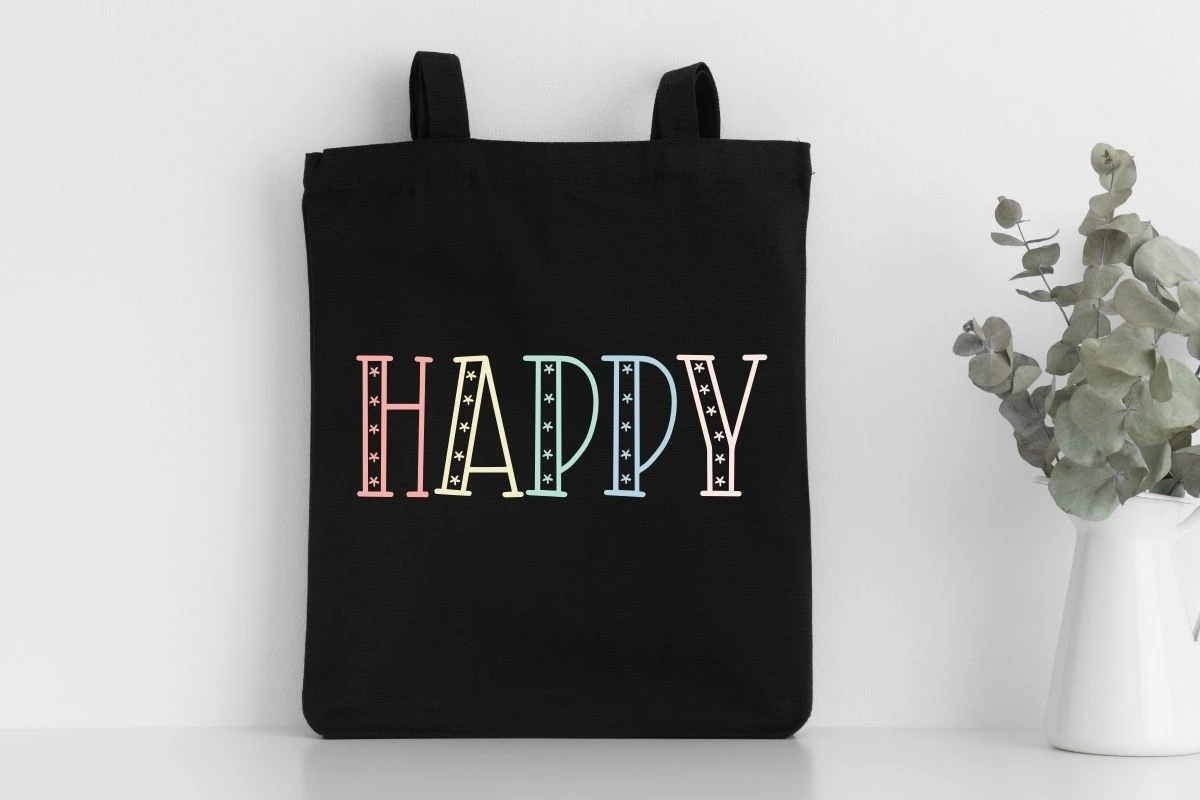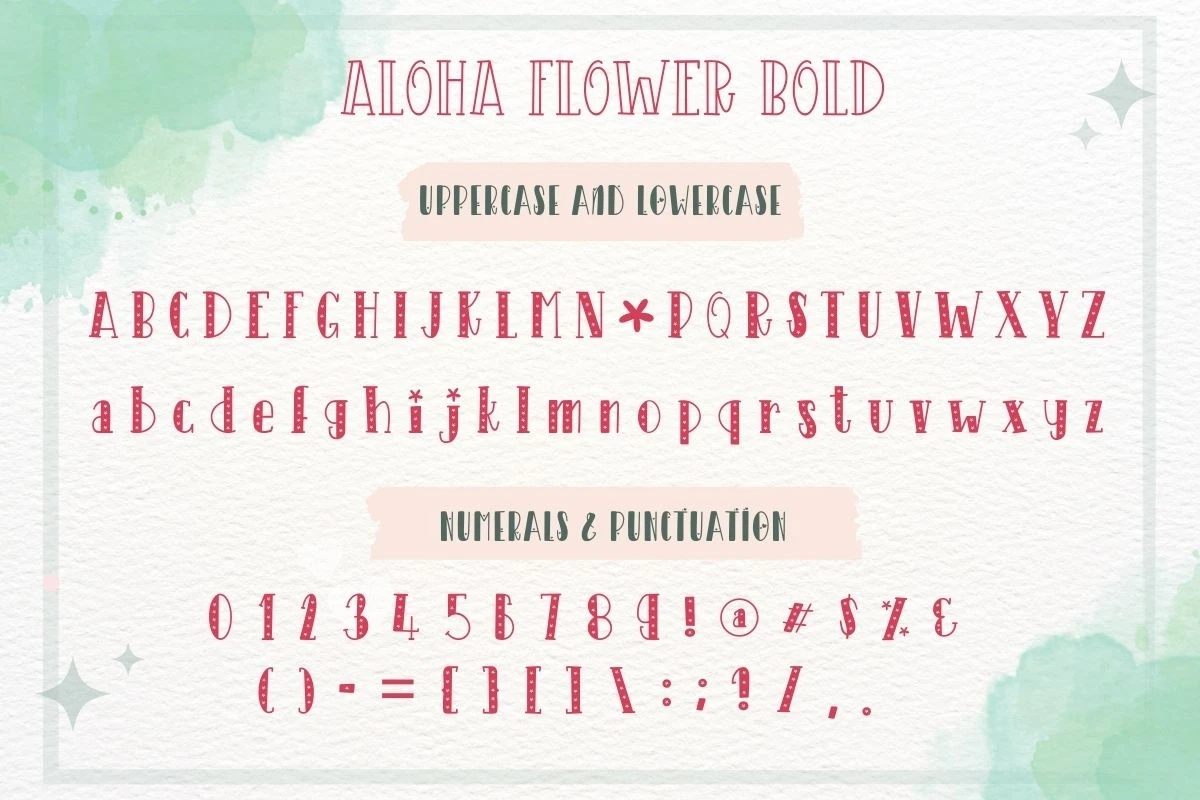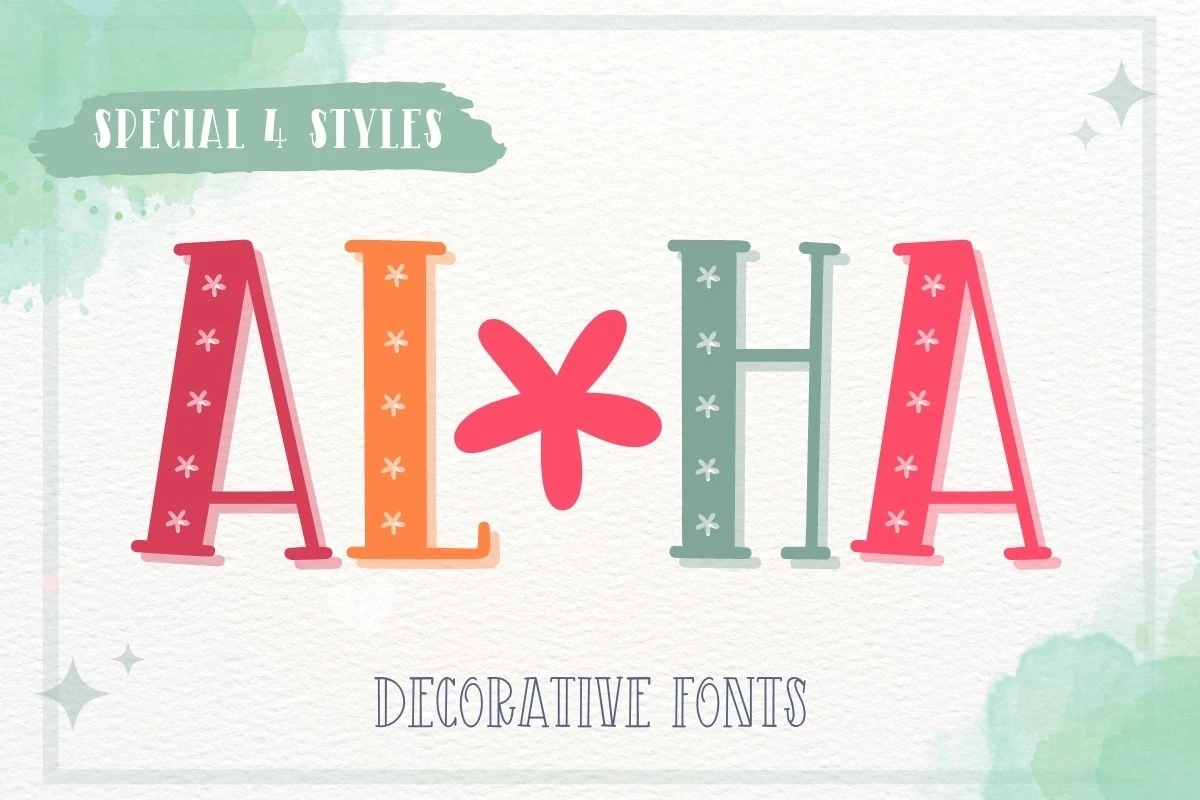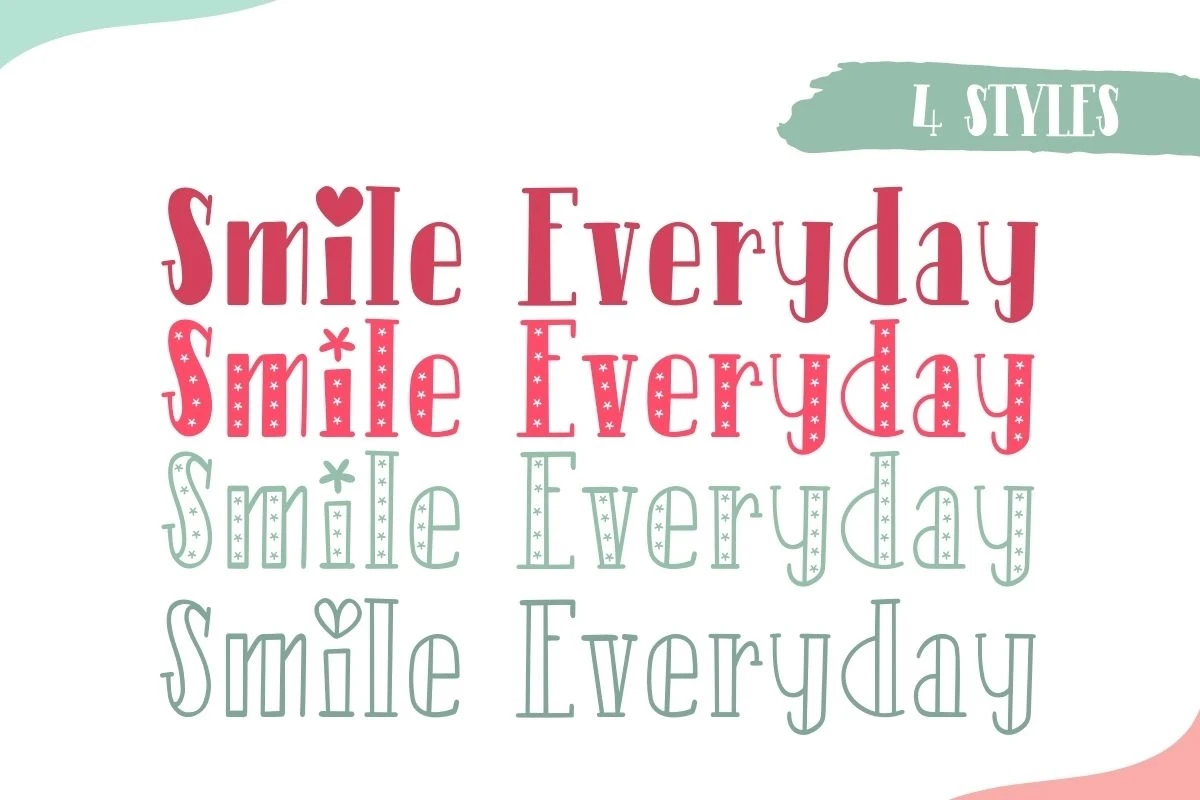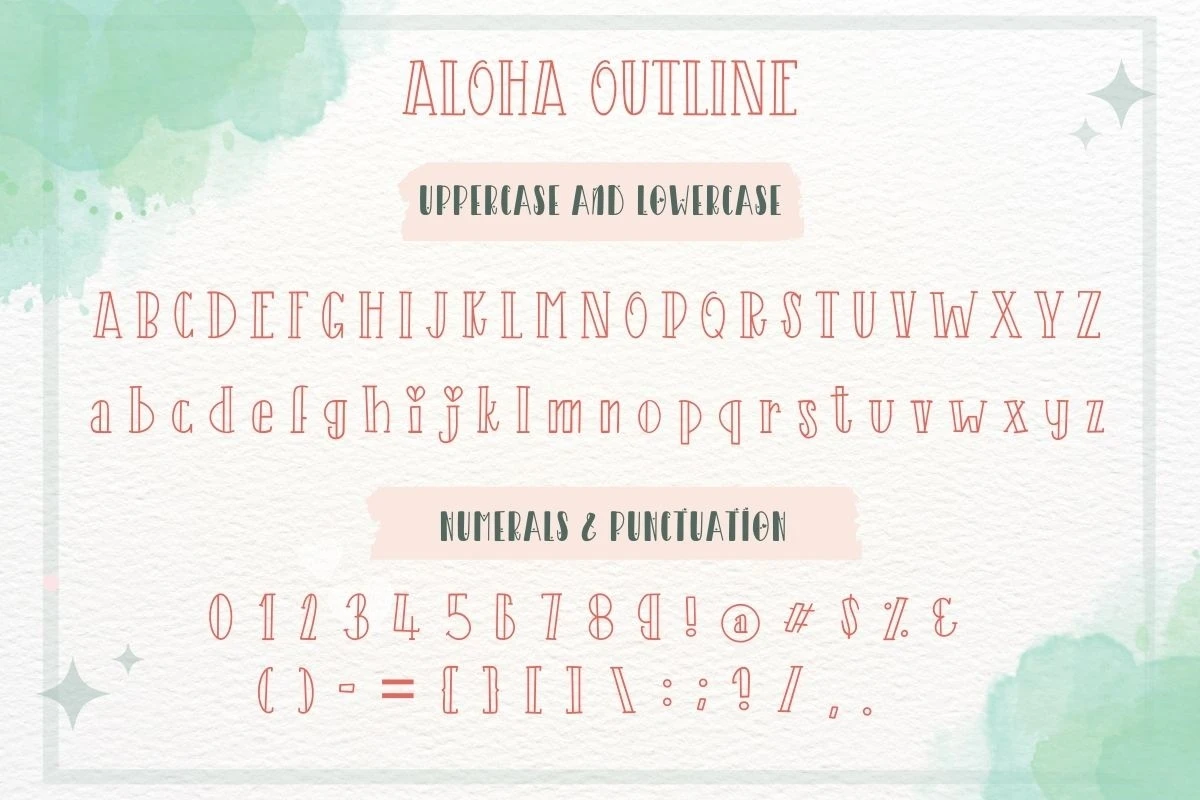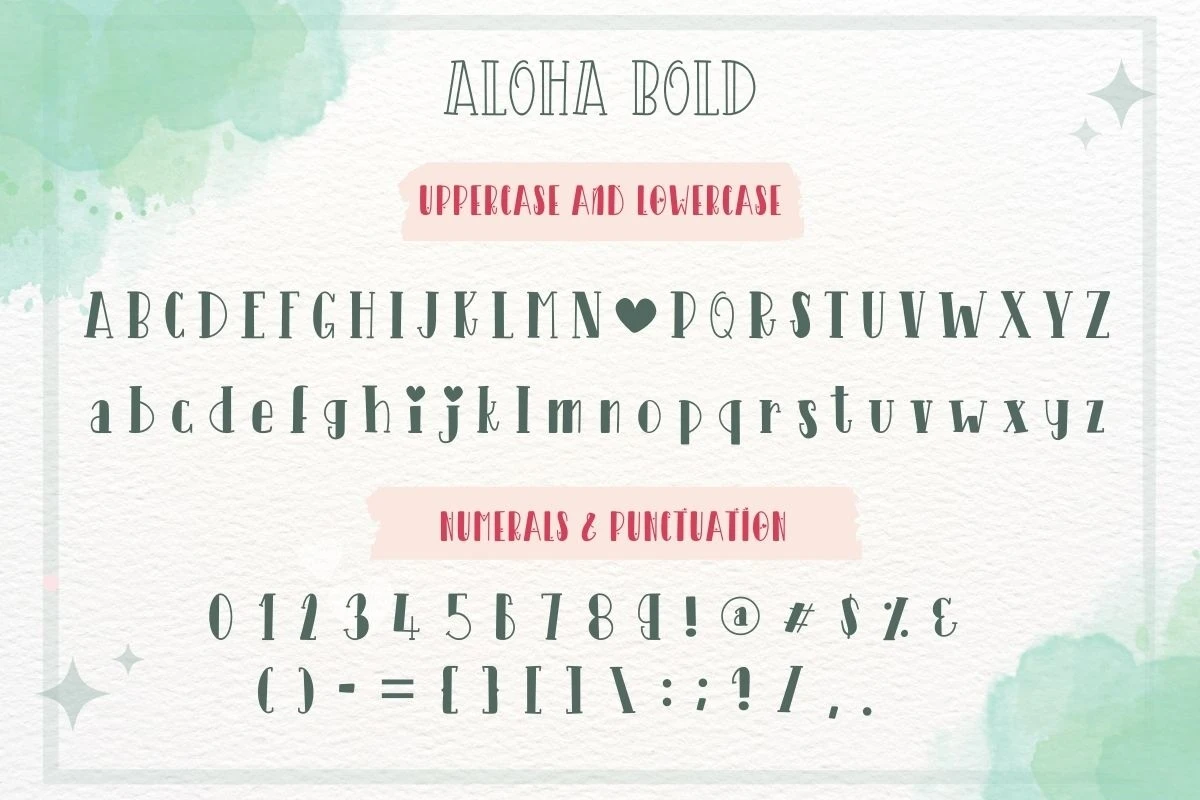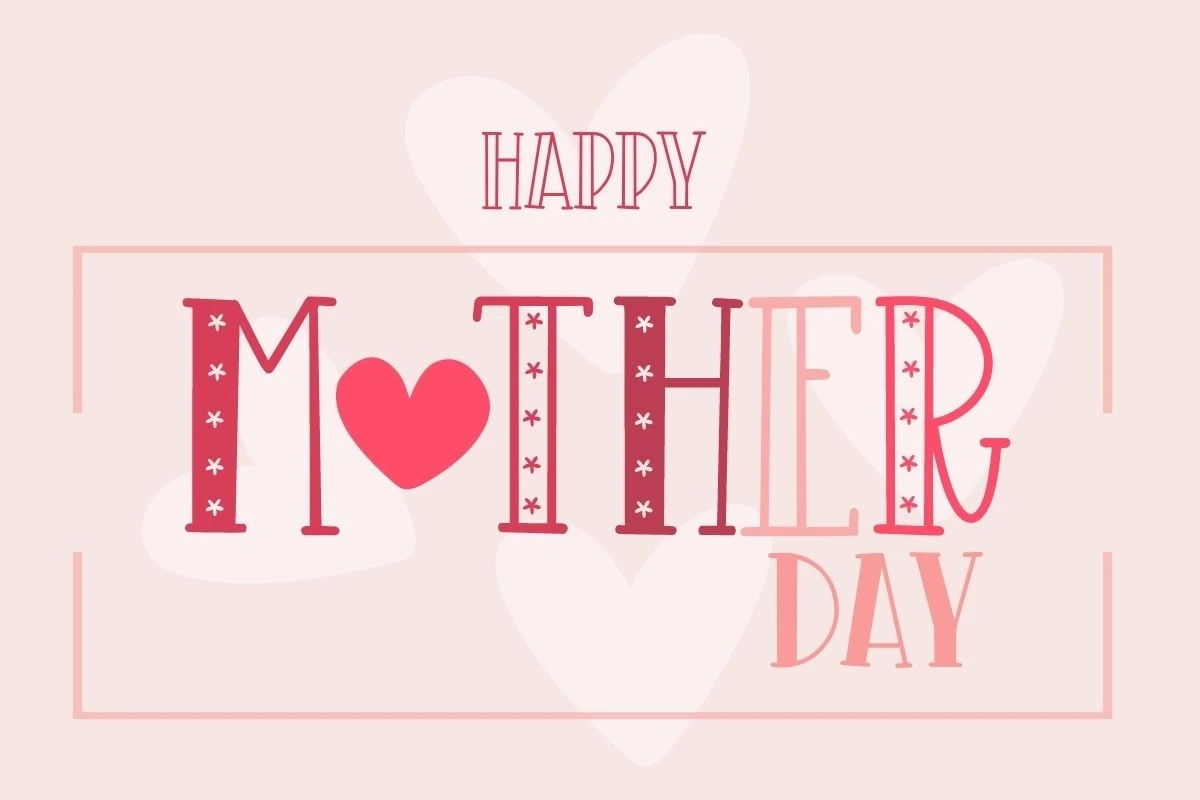
Aloha is a cute decorative font that will help you enjoy and have fun with your designs. This Font have 4 styles. (Bold, Flower Bold, Outline and Flower Outline) Perfect for creating a wide variety of new designs to match products such as banners, content, mugs, cards, shirts, stationery, social media posts, and more!